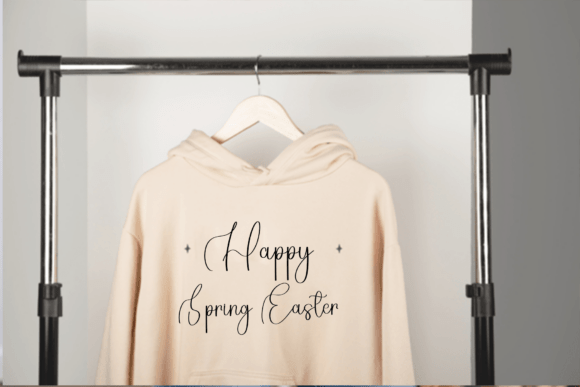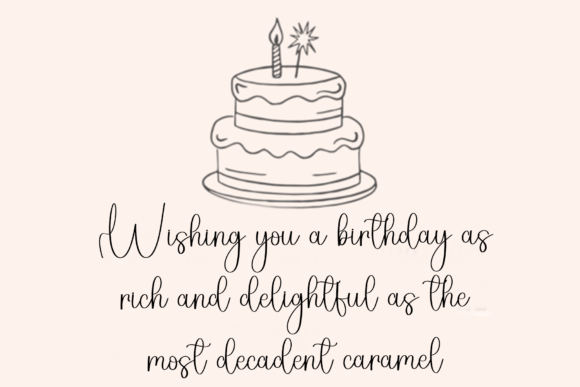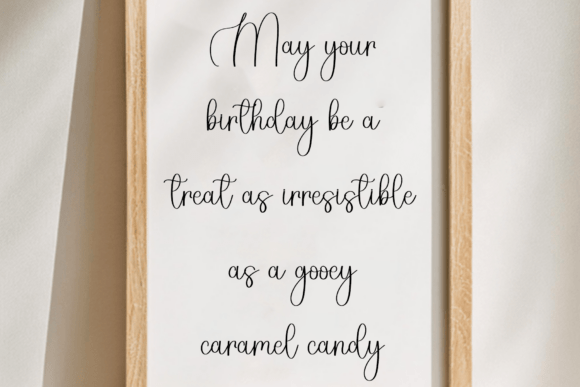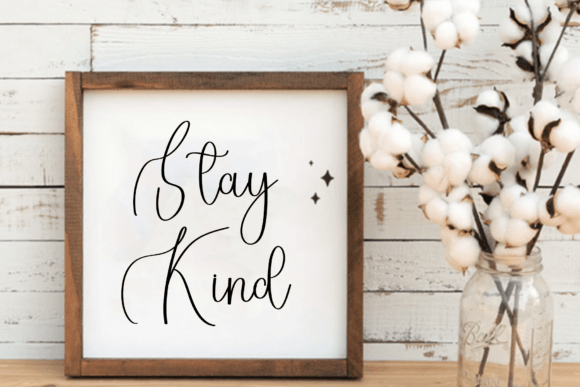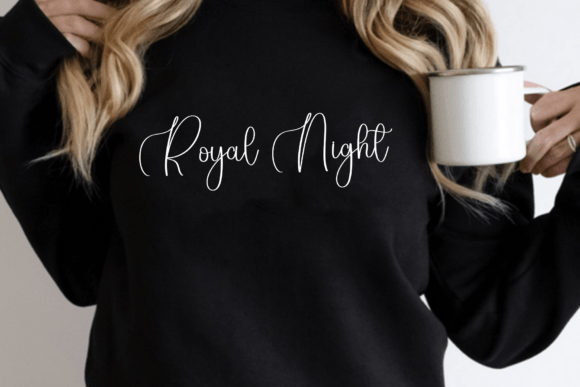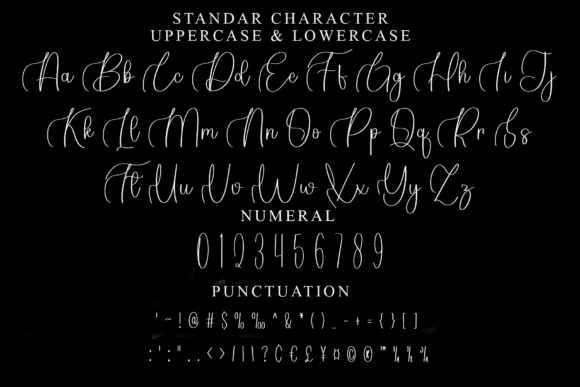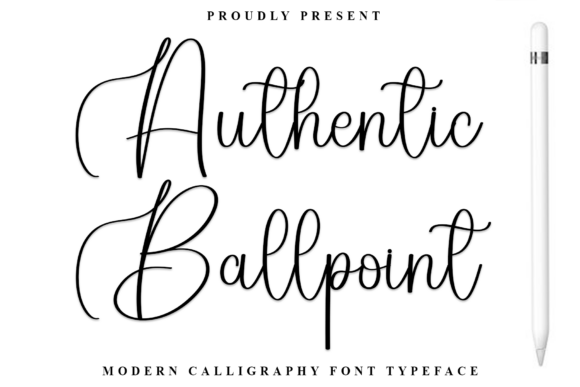
The Perfect Font for a Personal Touch: Authentic Ballpoint
I still remember the time I was working on a project for a client who wanted a font that felt approachable, friendly, and downright charming. I scoured the internet, tried out countless fonts, but nothing seemed quite right. That was until I stumbled upon Authentic Ballpoint. Its round, playful strokes immediately caught my eye, and I knew I had found the perfect fit. In this article, I’ll share my experience with Authentic Ballpoint, its features, and how to make the most of it in your designs.
- ✨ The casual and creative vibe it brings to any design
- ✅ The warmth and friendliness it exudes, perfect for personal projects and social media graphics
- 🎉 The charming, hand-drawn aesthetic that adds a fun and unique touch
While Authentic Ballpoint is an excellent font, there are a few things to keep in mind:
- ⚠️ It may not be the best choice for formal or professional projects, as it can come across as too casual
- 🤔 Some users may find the font a bit too playful or childish for certain designs
The Story Behind Authentic Ballpoint
Authentic Ballpoint was designed with the intention of creating a font that felt warm, friendly, and approachable. The designer wanted to create a font that would be perfect for personal projects, invitations, and social media graphics. With its charming, hand-drawn aesthetic and standard PUA Encoded glyphs, Authentic Ballpoint has become a popular choice among designers and crafters.